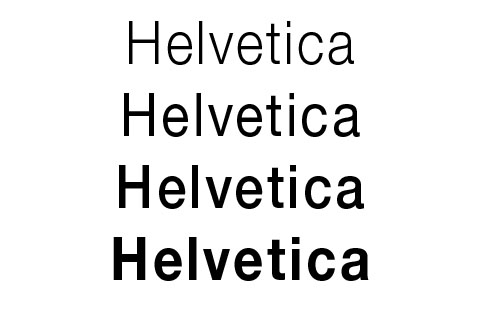
To talk anymore about Helvetica seems pretty awkward. There is now even a movie with Interviews to important designers, featuring David Carson, Erik Spiekermann, Matthew Carter, Massimo Vignelli, Wim Crouwel (availlable in DVD and Blu-ray). In the movie you will find a lot of the theories that I find most intresting and write about in my lessons on how to become an art director. Besides the admiration to this great font we find it difficult to find alternatives. Maybe - but I've found a quite some very cool fonts, that can take on the ultra classic font Helvetica.
Helvetica
Top Alternatives
- National (www.vllg.com)
- Slate (www.linotype.com)